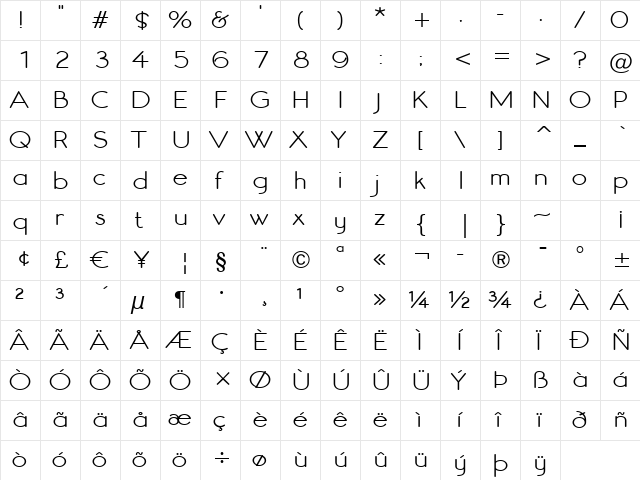
Register Sans BTN Wide Regular
Design Context for Register Sans BTN Wide Typeface
Register Sans BTN Wide offers clean, dependable letterforms without strong stylistic allegiance, making it a practical choice for designers who need flexibility.
Pro Tip: Use Register Sans BTN Wide in both headline and body roles to test its range before committing to a single application.